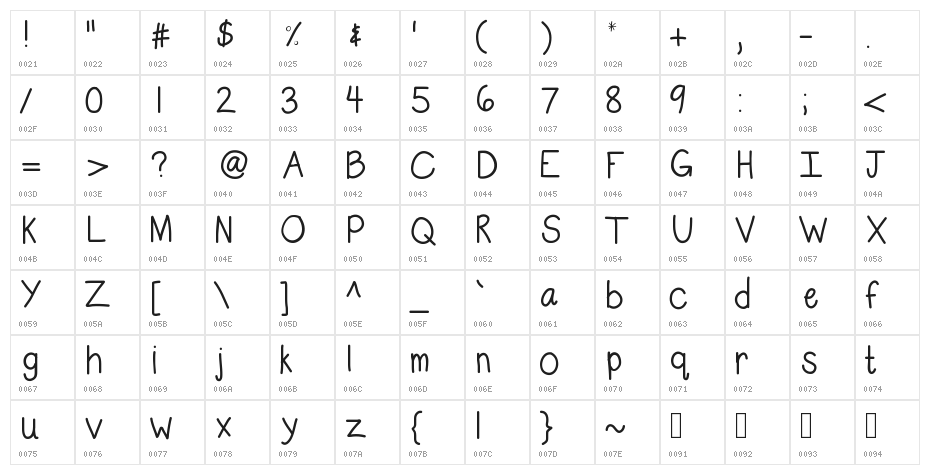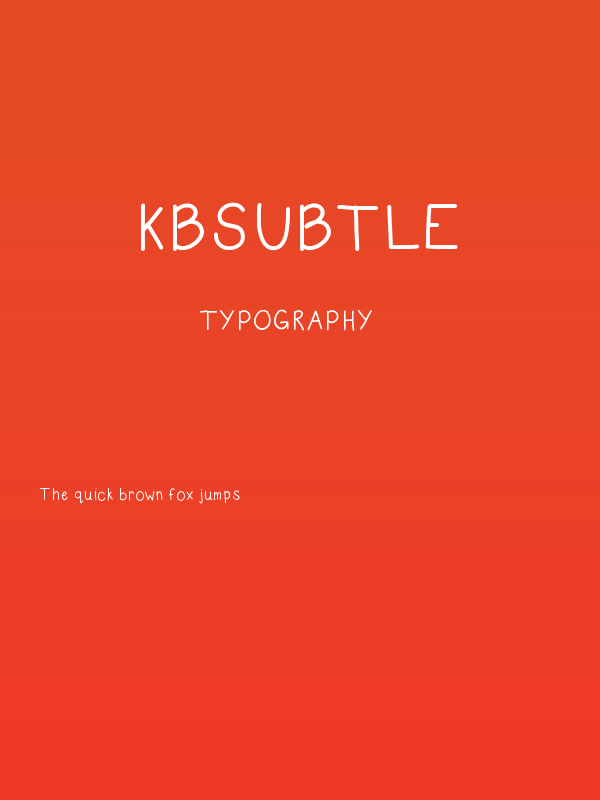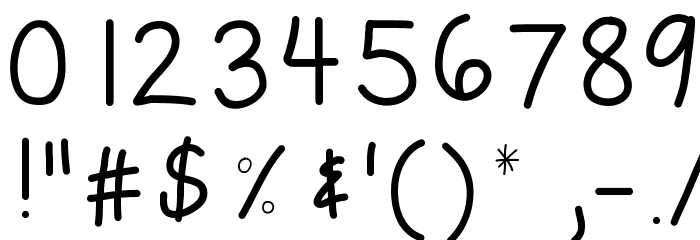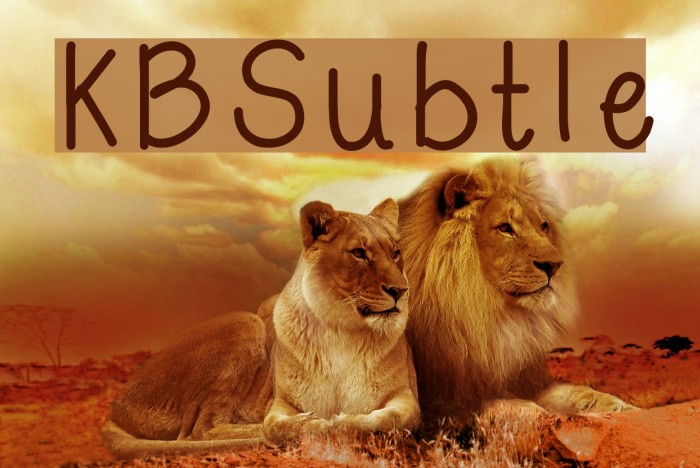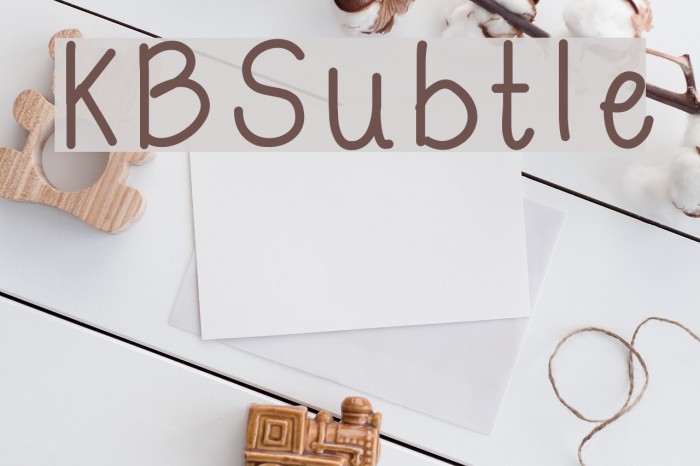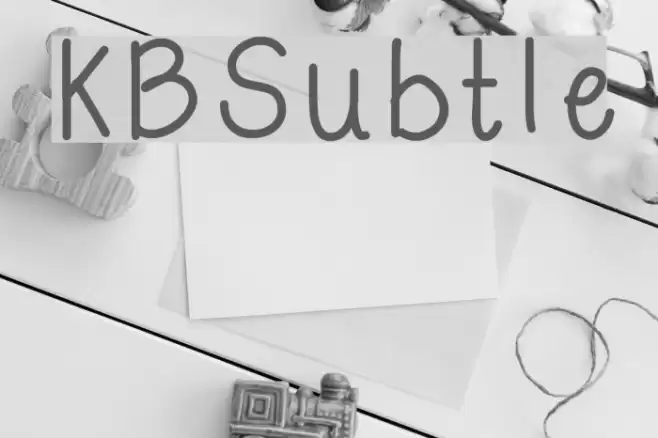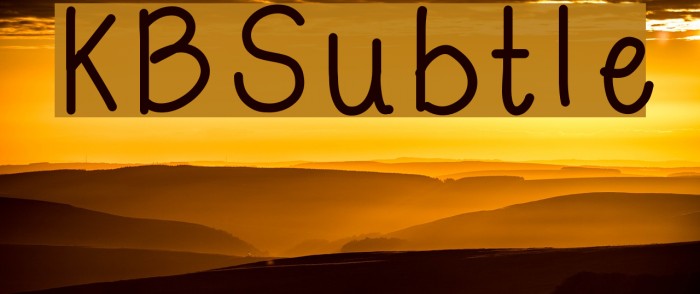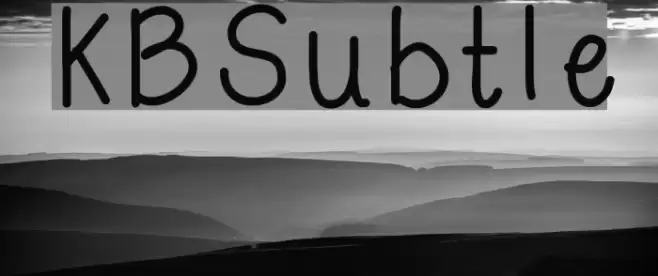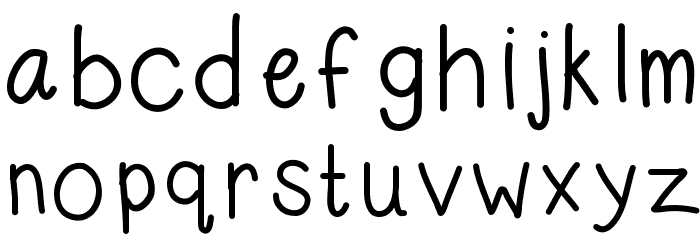
KBSubtle Font
KBSubtle Description
This font features a playful and casual handwritten style, characterized by its rounded and slightly irregular letterforms. The uppercase letters maintain a consistent height, while the lowercase letters exhibit a charming variation in size and alignment, adding to the font's informal appeal. The numerals are clear and easy to read, with a similar rounded quality. Special characters are included, maintaining the same whimsical style. The overall appearance is friendly and approachable, making it suitable for projects that require a personal touch.
| Overall Style | Casual |
| Use Case | Headlines, Informal text, Branding |
| Proposed Projects | Ideal for children's books, greeting cards, casual invitations, and playful branding. |